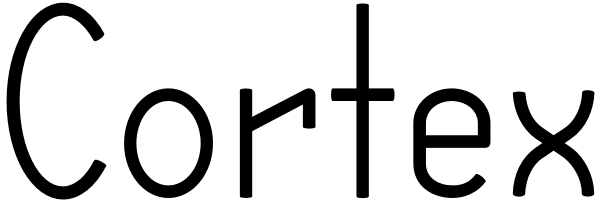
Cortex
Cortex was designed for Shanghai Word Expo 2010 / A.A.D.I Pavilion corporate identity: signage, corporate communication, graphic design (a 120 pages monography), promotional items, etc. It was inspired by the pavilion "slanted" architectural...